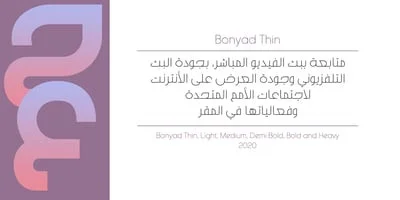
Bonyad Font is an exceptional choice for projects that require a sense of timeless elegance, cultural depth, and sophisticated craftsmanship. It's perfectly suited for high-end branding, editorial design with an artistic flair, luxury product packaging, art gallery promotions, and any design where a unique blend of heritage and modernity is desired. Imagine it gracing the cover of an art book, adding an air of refined exclusivity to a gourmet food label, or giving a distinctive voice to a cultural institution's website. Its nuanced design ensures your message is conveyed with both gravitas and artistic beauty.
What makes Bonyad Font so exciting is its remarkable ability to bridge the gap between traditional aesthetics and contemporary appeal. It possesses a distinctive character that feels rooted in rich calligraphic traditions while maintaining a clean, legible form for modern applications. This font isn't just about conveying text; it’s about evoking a narrative, adding a layer of authenticity and artistic integrity to your designs. It speaks to a discerning audience, suggesting quality, depth, and a commitment to detail.
The Bonyad Font family typically offers a range of weights and styles to provide comprehensive design flexibility. You might find a standard Regular weight that showcases its unique strokes, along with potential variations such as a Light for subtle elegance or a Bold for pronounced impact. These different styles allow for creating sophisticated typographic compositions, ensuring that whether you need a delicate touch or a strong statement, the Bonyad Font Free Download provides the foundational versatility to achieve a truly distinctive and memorable design.